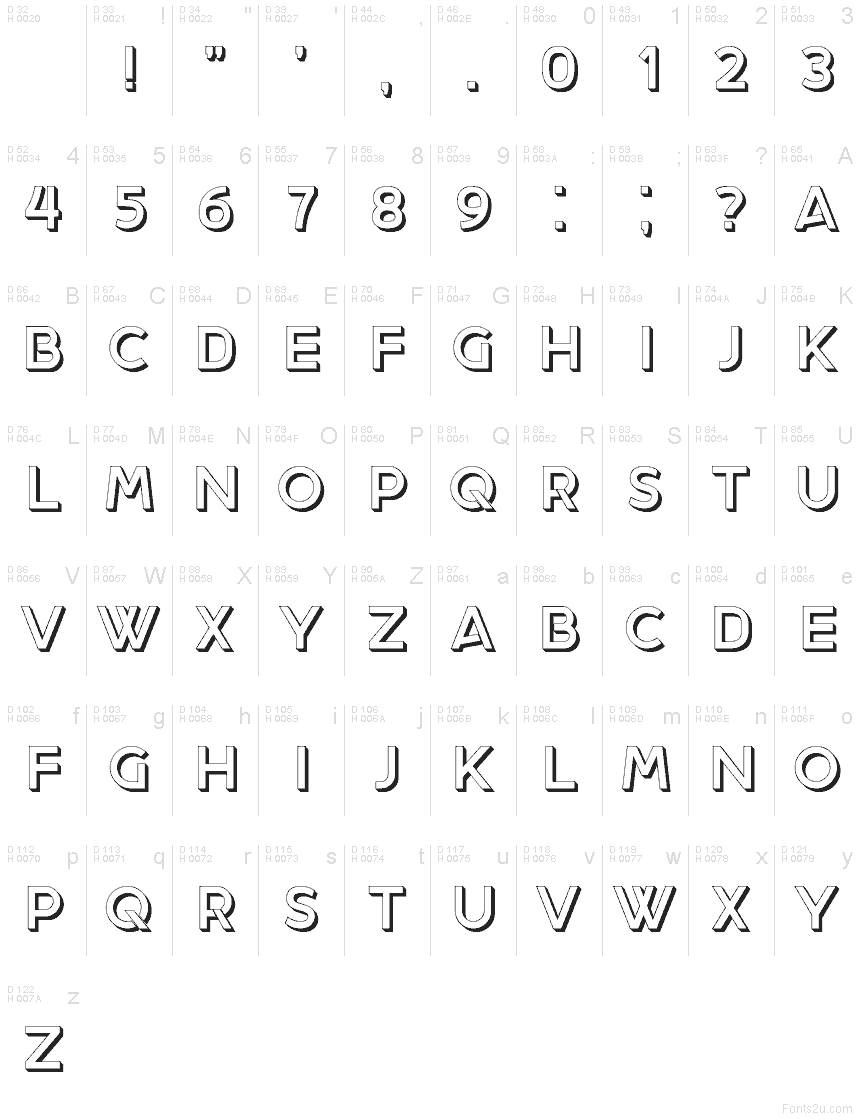
Dalia 3D Regular
Dalia 3D font by Vladimir Nikolic is a free decorative display typeface that pops off the page with crisp, carved-in depth. Bold, blocky letters are framed by a clean outline and subtle 3D shading, creating the illusion of raised lettering you could almost run your fingers over. The geometric structure keeps it sharp and readable, while the built-in dimensional effect adds instant drama without needing extra graphic tricks.
Using Dalia 3D, you can drop ready-made headline impact into posters, logos, game titles, packaging, flyers, and bold social graphics. This free font shines when set large, where its sculpted edges and inner spacing can really breathe. Pair it with a simple sans serif from the Dalia family or another neutral text face, letting Dalia 3D handle the loud, attention-grabbing moments.